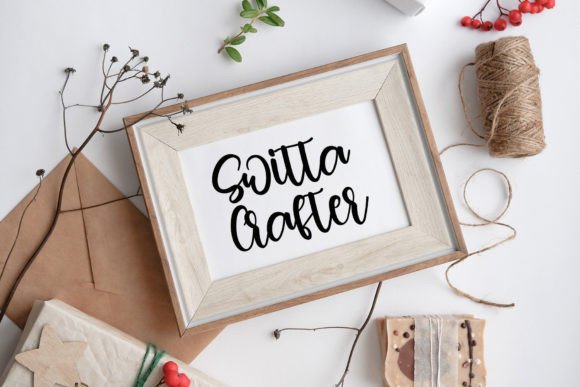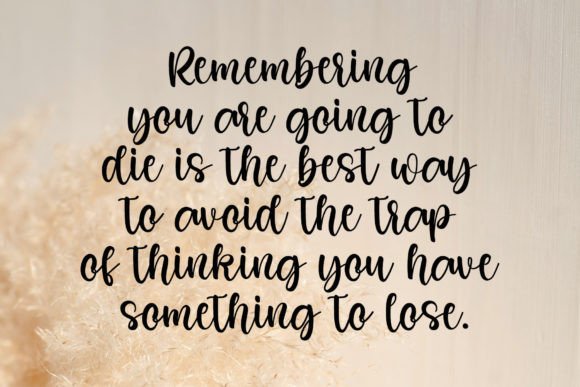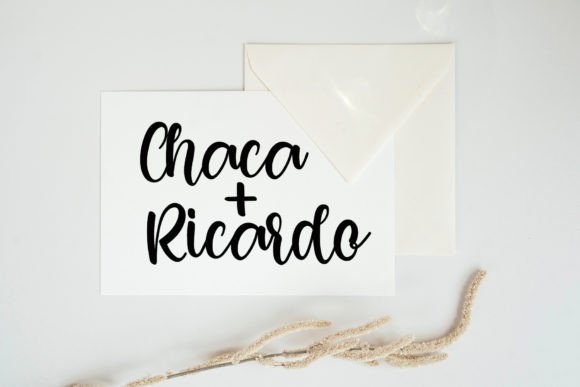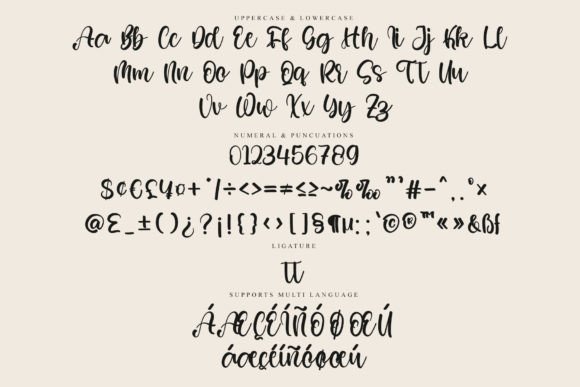
Sweety Font
About Sweety Font
**Sweety Font: Dazzling, Detailed, and Perfect for Creative Projects**
Introducing Sweety, a dazzling script font that exudes elegance and charm. Sweety is meticulously crafted with intricate details, making it an excellent addition to your font library. Here’s why Sweety stands out:
**Elegance and Sophistication:**
Sweety’s elegant and sophisticated style makes it suitable for a wide range of design projects that require a touch of refinement.
**Intricate Detailing:**
The font’s intricate details set it apart, adding a level of artistry and craftsmanship to your creations.
**Versatile Application:**
Sweety is versatile and can be used for a variety of projects, from wedding invitations to greeting cards, logos, headlines, and more.
**Enhanced Visual Appeal:**
With Sweety, your designs will have an enhanced visual appeal. Its carefully designed characters and beautiful curves make it visually captivating.
**Timeless Aesthetic:**
Sweety’s timeless aesthetic ensures that it remains relevant for years to come, making it a valuable asset for your design endeavors.
**Wide Range of Applications:**
Whether you’re working on branding, advertising, or personal projects, Sweety can adapt to various design applications with ease.
**Crafted for Excellence:**
The font is meticulously crafted to provide a sense of excellence and craftsmanship in your designs.
**Captivate Your Audience:**
Sweety has the potential to captivate your audience with its elegance and attention to detail, leaving a lasting impression.
**Ideal for Special Occasions:**
When you want to create designs for special occasions such as weddings, anniversaries, or formal events, Sweety adds a touch of luxury and sophistication.
**Detailed Flourishes:**
Sweety includes detailed flourishes and swashes that allow you to create beautifully embellished typography.
**Create Stunning Typography:**
Use Sweety to create stunning typography that enhances the overall look and feel of your designs.
**Elevate Your Branding:**
If you’re looking to elevate your branding or give your projects a premium touch, Sweety is the font that can make it happen.
**Unique and Distinctive:**
Sweety’s distinctive style sets it apart from ordinary fonts, making it a unique choice for your creative endeavors.
**Crafted with Care:**
Every character in Sweety is crafted with care and precision, ensuring that your designs are of the highest quality.
**Enhance Any Creation:**
No matter the topic or theme, Sweety has the potential to enhance any creation and make it stand out.
**Elegance and Detail Combined:**
Sweety seamlessly combines elegance and intricate detailing to create a font that’s both visually pleasing and artistically impressive.
**Add Sweety to Your Font Library:**
Elevate your design projects with the addition of Sweety to your font library. It’s the font that brings a touch of sophistication and dazzle to your creative work.
**Experience Elegance with Sweety:**
Experience the elegance and charm of Sweety as you create designs that leave a lasting impact. It’s the font that elevates your work to new heights.
**Let Sweety Shine in Your Creations:**
Let Sweety be the font that shines in your creations, adding a touch of dazzling beauty and intricate artistry.
**Unlock Sweety’s Potential:**
Unlock the full potential of your designs with Sweety, the font that turns ordinary projects into works of art.
**Create with Sweety Today:**
Start creating with Sweety today and discover the difference that elegance, sophistication, and intricate detailing can make in your design projects.